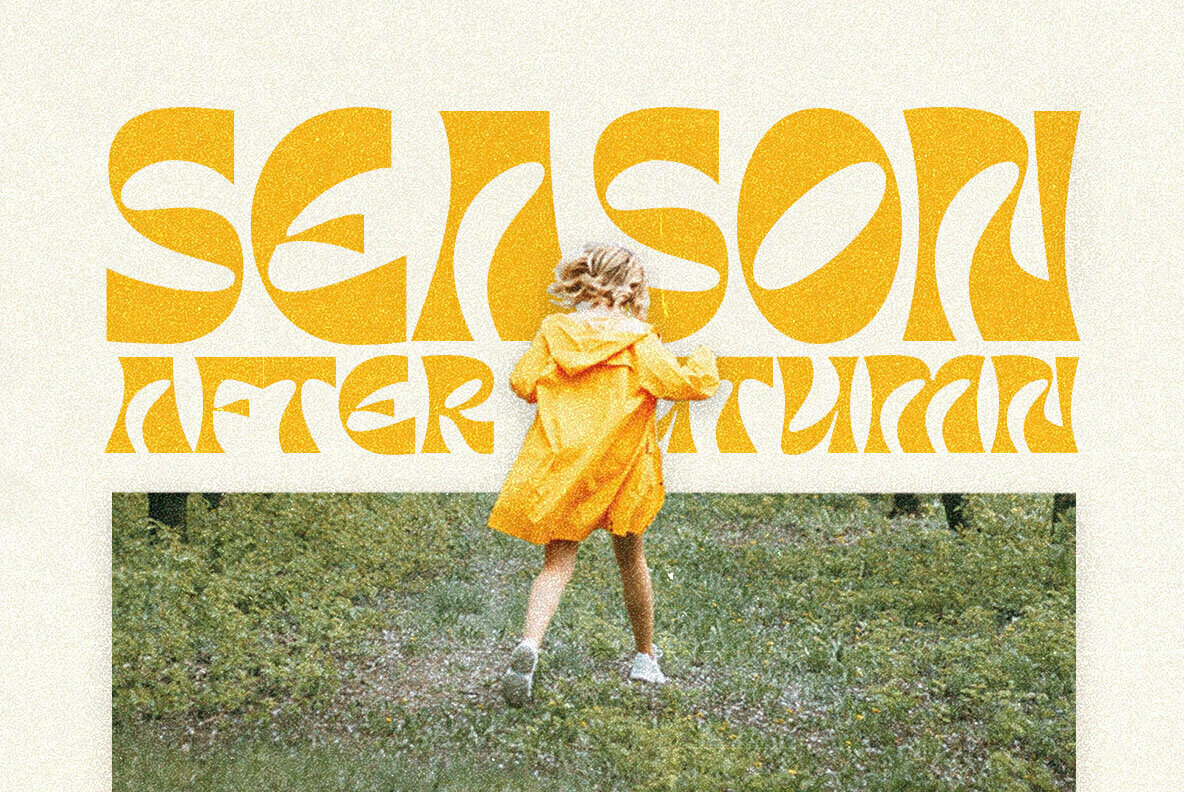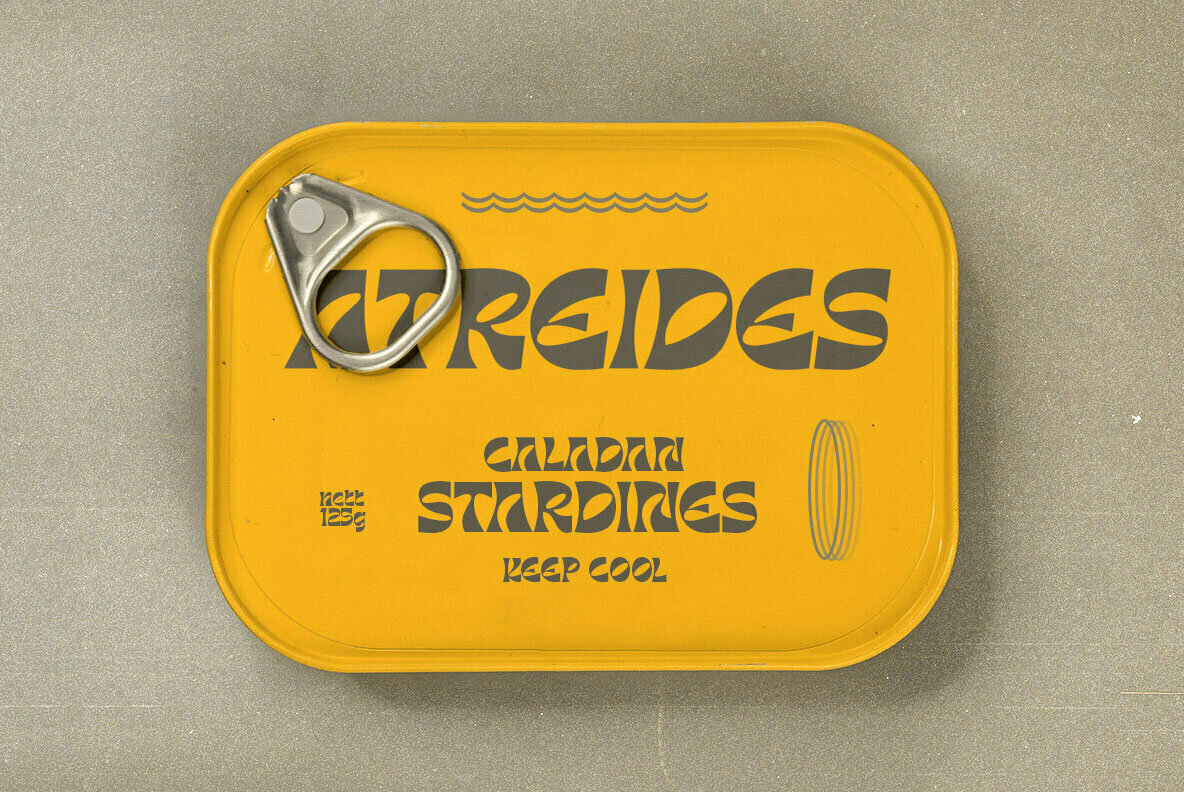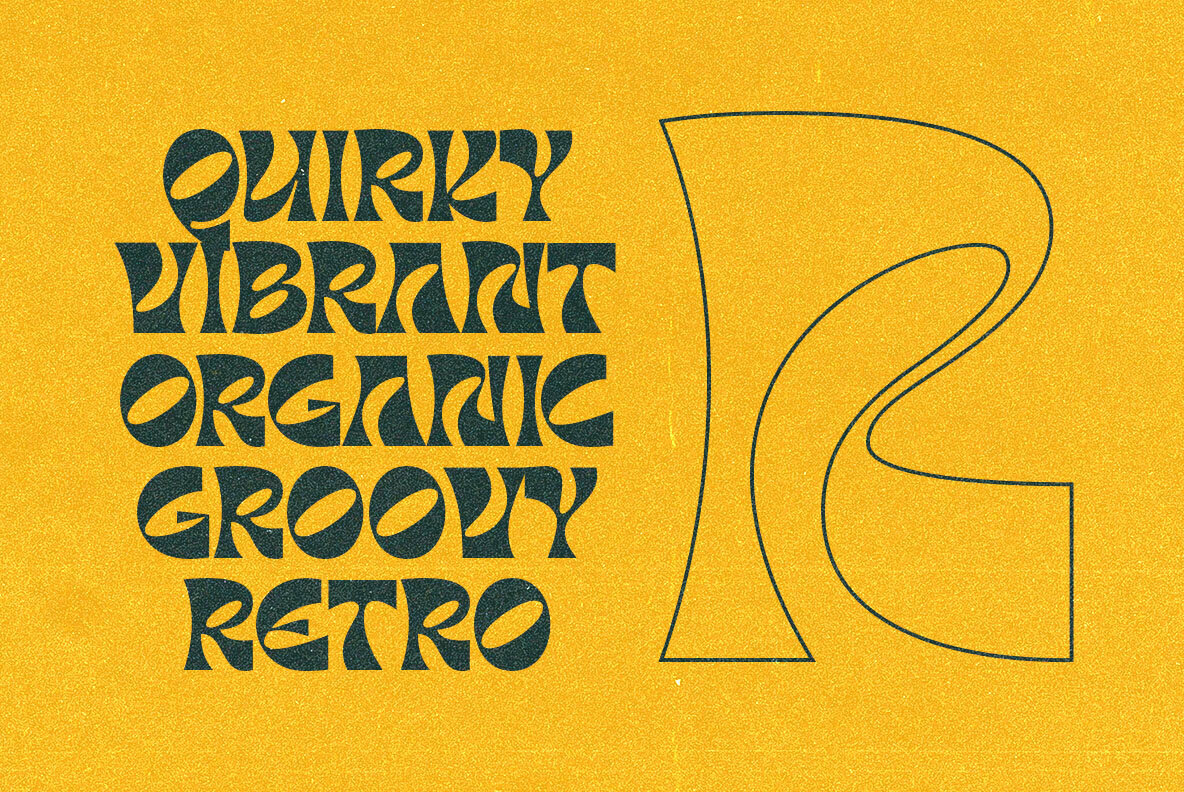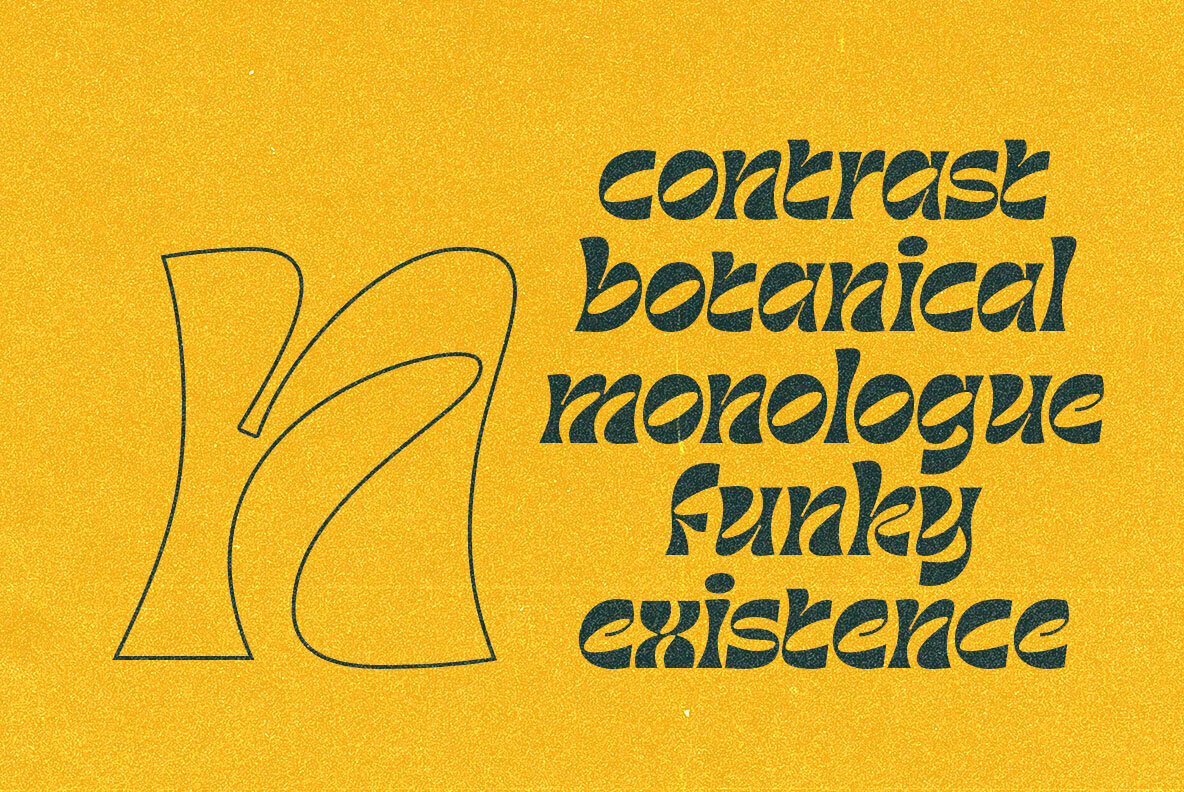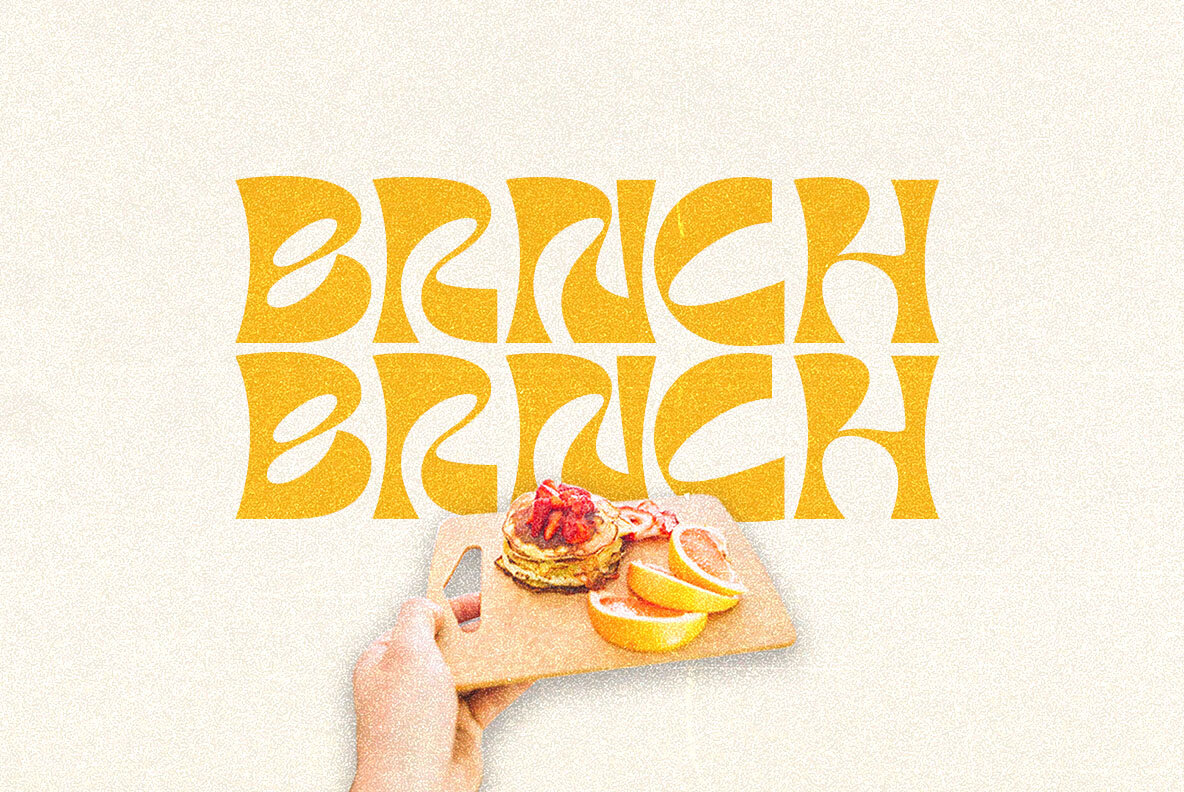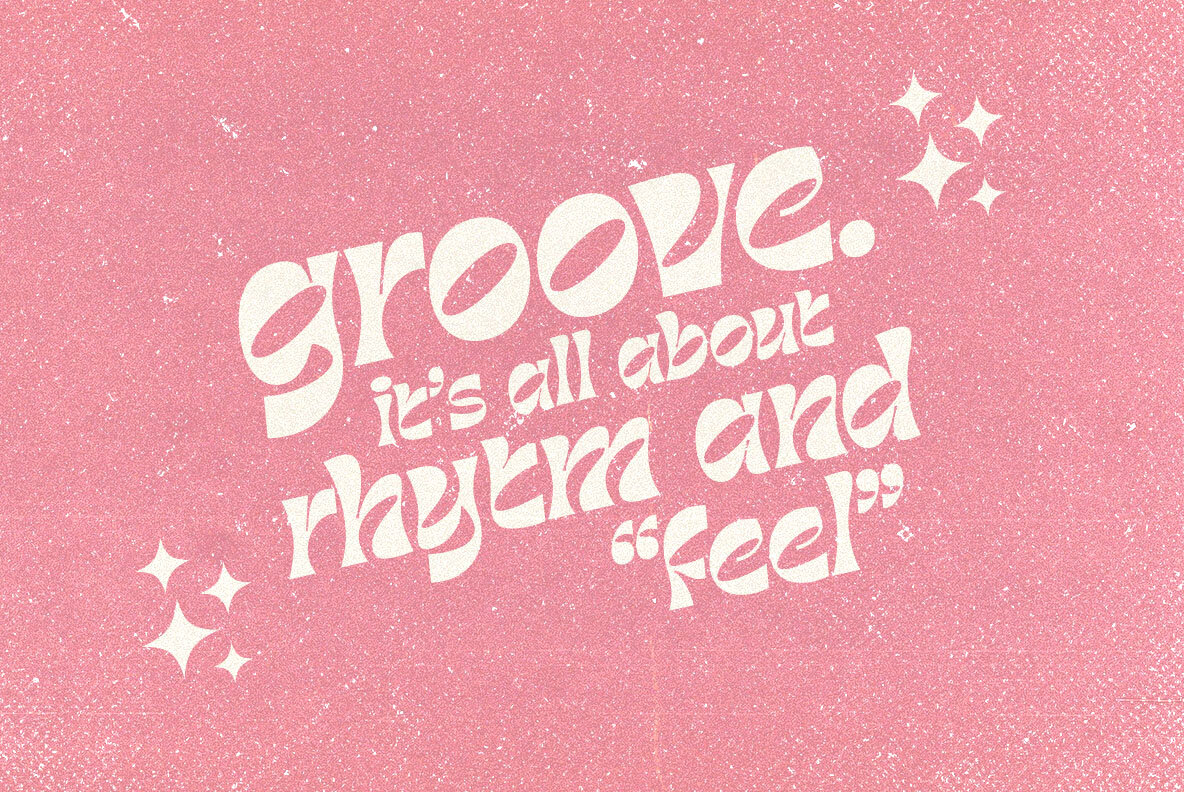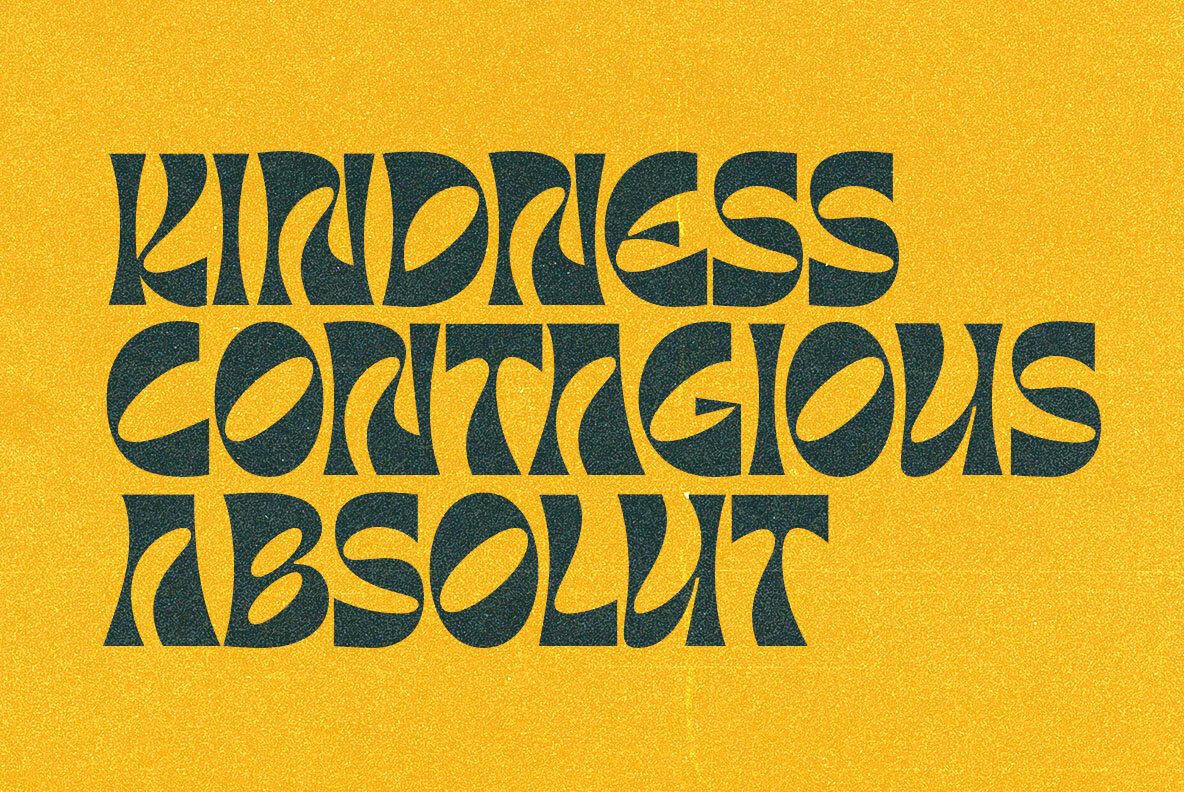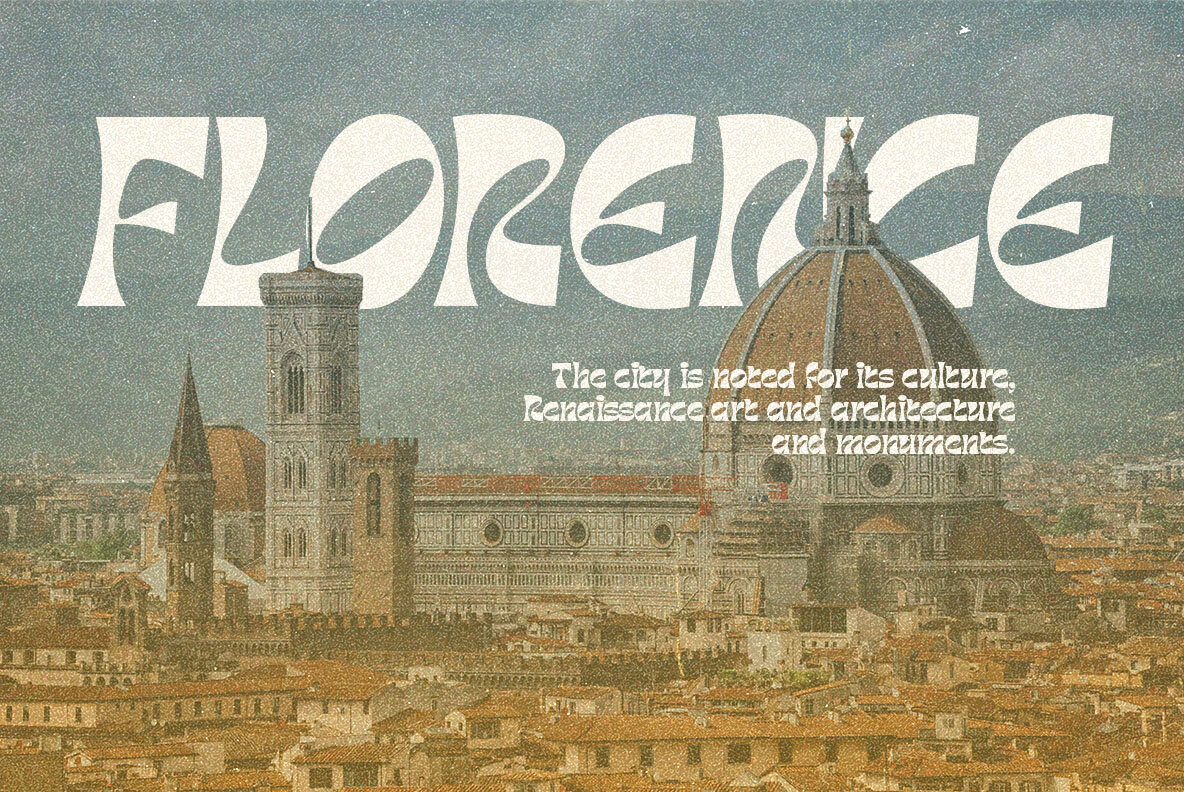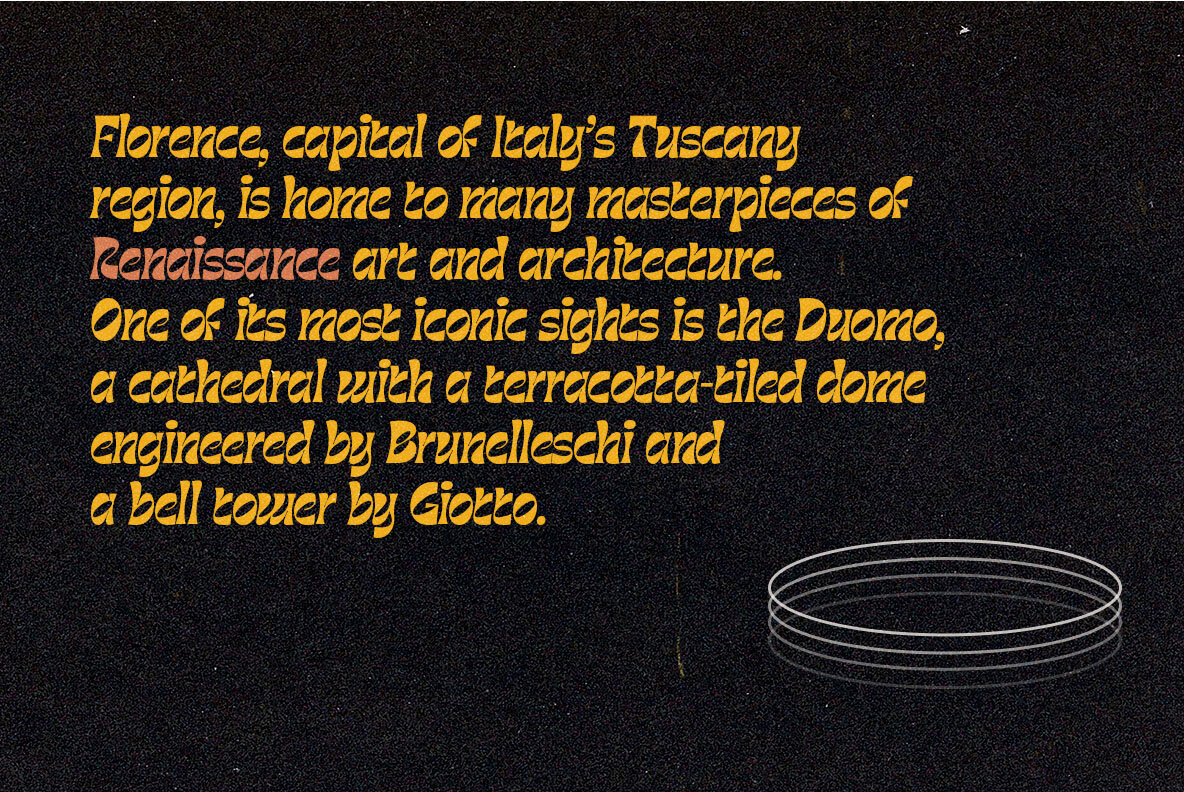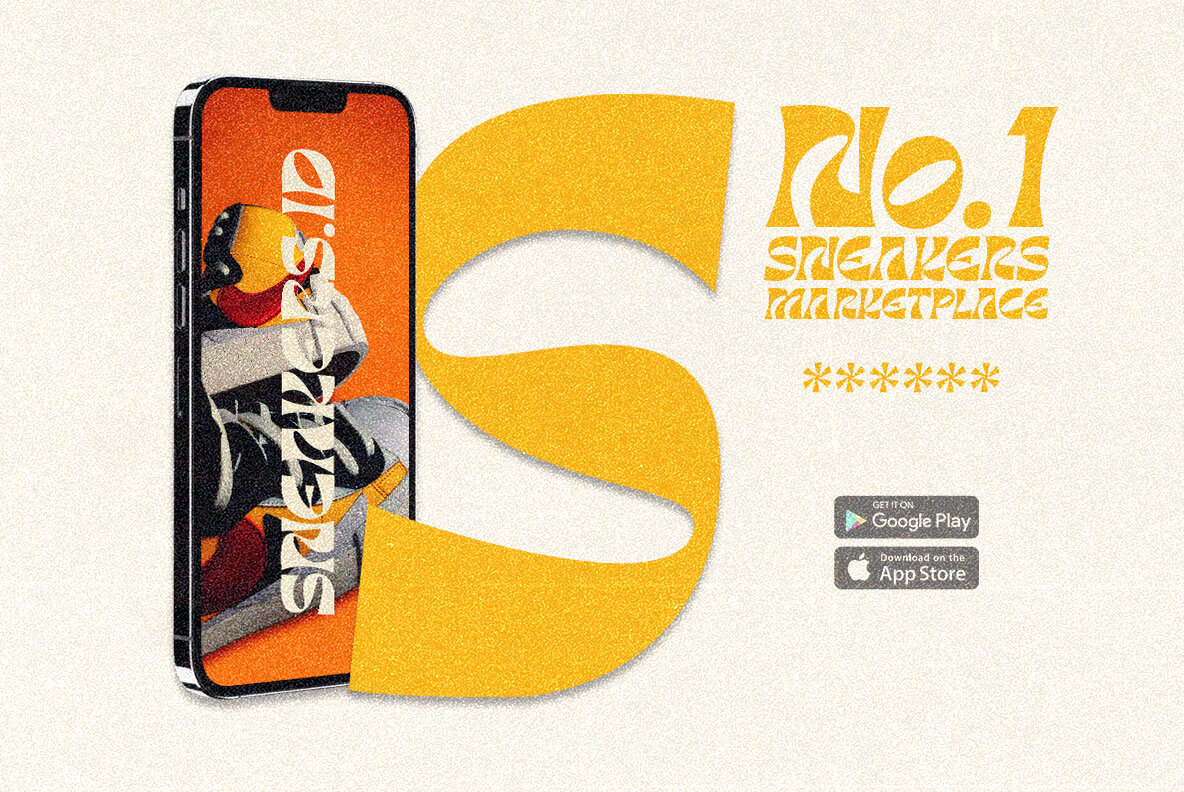
Barbra Font
Barbra Regular
Barbra Italic
Barbra High
Barbra High Italic
The Barbra font by Nurrontype is a captivating display typeface that brings retro aesthetics into the modern design landscape with its unique letterforms. Its nostalgic charm is tailored for graphic designers who seek to inject vintage elegance into their projects. Barbra stands out as a versatile choice for branding, posters, and digital media, offering designers a wealth of creative opportunities.Barbra: A Retro Font with Distinctive Flair